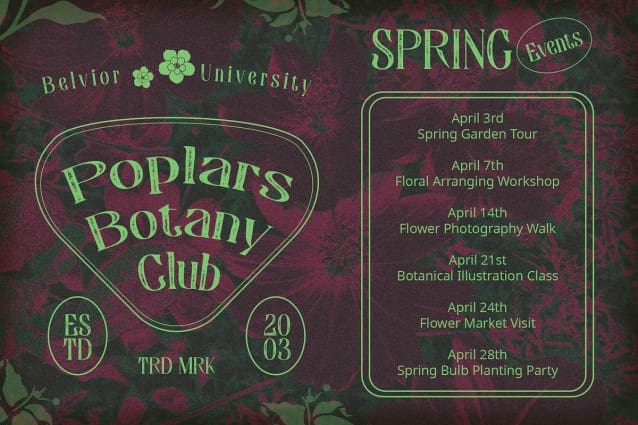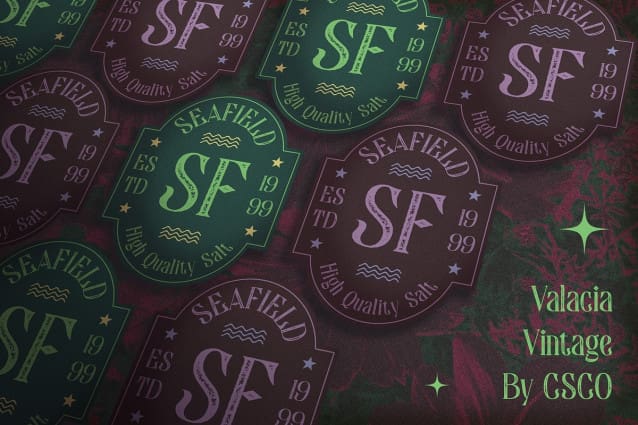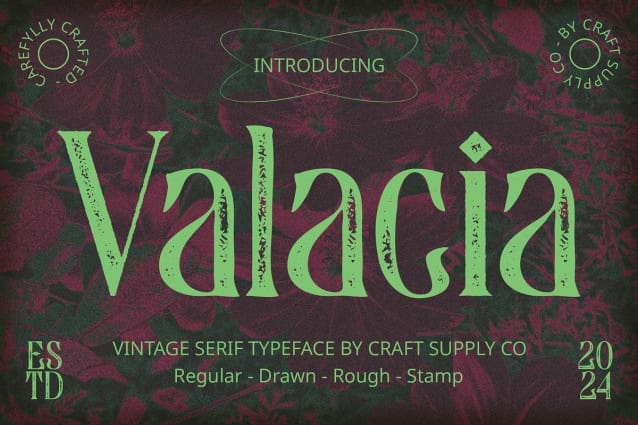
Valacia Vintage Font
Valacia Vintage Font: Embodying Vintage Elegance. High Contrast Serif Design Valacia Vintage features a striking high contrast serif design that commands attention and adds a touch of sophistication to any project.
Stamp Effect With its unique stamp effect, this font exudes a vintage charm that harks back to bygone eras. Each character carries a sense of history and nostalgia, perfect for creating a retro vibe.
Ideal for Display The high contrast serif design and stamp effect make Valacia Vintage ideal for display purposes. It shines in headlines, titles, and other prominent text elements, captivating viewers with its vintage allure.
Versatile Usage Despite its vintage vibes, This font is versatile in its application. From branding and packaging to posters and invitations, it adds a timeless elegance to any design project.
Timeless Elegance with a Vintage Twist This font offers a perfect blend of vintage charm and modern sophistication, making it an excellent choice for designers seeking to evoke nostalgia and elegance in their projects. With its high contrast serif design and distinctive stamp effect, it brings a touch of vintage flair to any design endeavor.